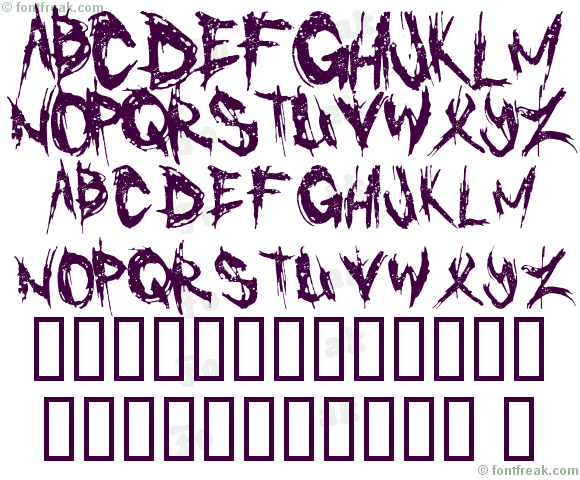
Cannibal
About Cannibal
The Cannibal font, designed by Chris Vile, falls into the decorative category, making it a striking choice for projects that require a bold and unique typographic statement. Its irregular and jagged letterforms evoke a sense of raw energy and intensity, characterized by varying stroke weights that create a visually dynamic appearance. The font features a high level of contrast between thick and thin lines, contributing to its dramatic flair, while the spacing between letters adds to the chaotic yet captivating aesthetic.
This font is particularly well-suited for a variety of creative applications. It can be used effectively in movie posters, especially for horror or thriller genres, where its edgy style can heighten the visual narrative. Additionally, Cannibal is an excellent choice for restaurant menus that aim to convey a quirky or adventurous theme, enticing diners with its playful yet bold character. Graphic designers may also find it ideal for crafting eye-catching branding materials or promotional graphics that require a distinctive touch. Furthermore, it can enhance the visual appeal of album covers in the music industry, especially for genres like punk or metal, where unconventional design elements are celebrated.
What sets the Cannibal font apart is its ability to fuse creativity with a sense of urgency and boldness. Its distinctive style captures attention, making it an unforgettable choice for anyone looking to elevate their design projects. For those interested in this unique typeface, a Cannibal font free download is available, allowing for easy integration into your next creative endeavor.